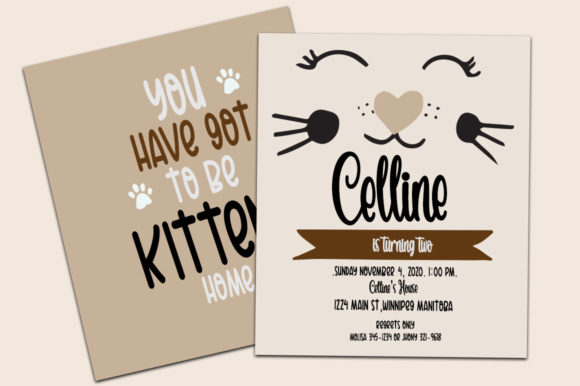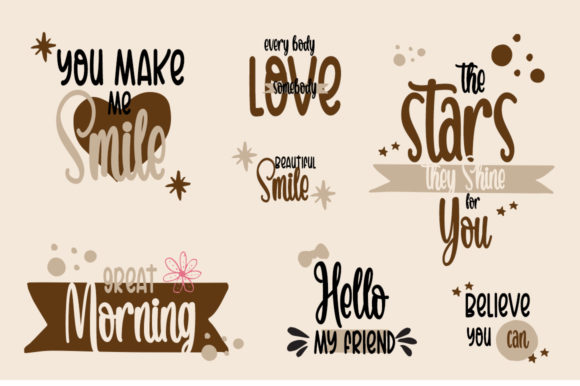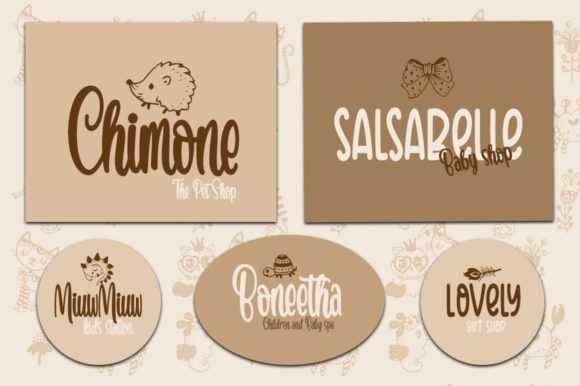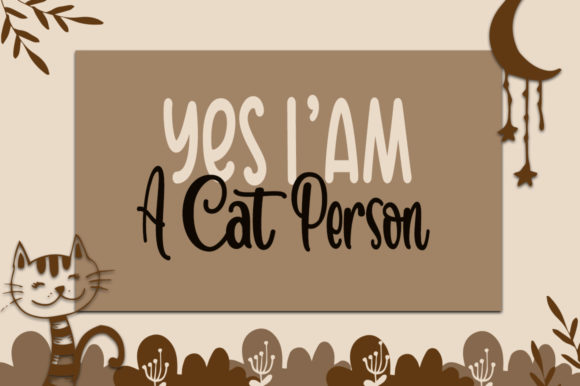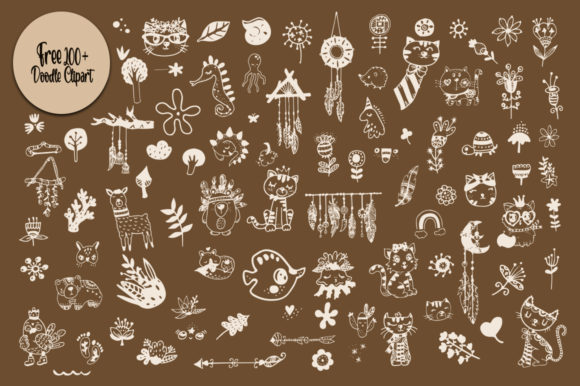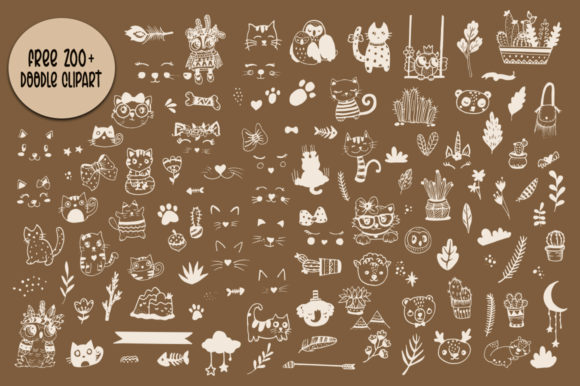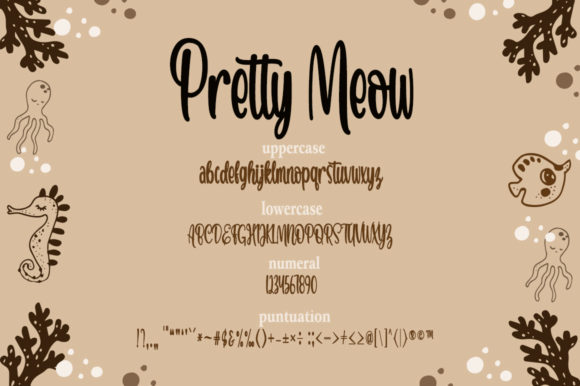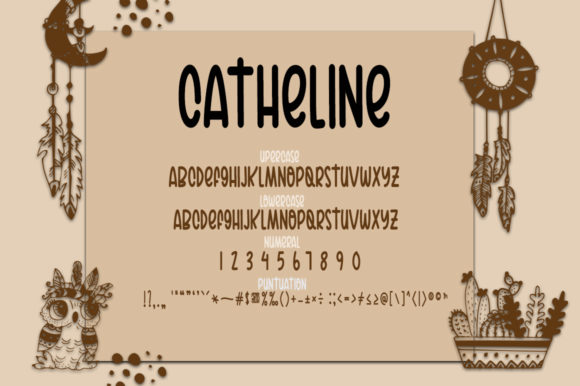
Catheline Pretty Meow Font
About Catheline Pretty Meow Font
Catheline Pretty Meow is a versatile handwritten font. It has beautiful and well balanced characters and as a result, it matches a wide pool of designs.